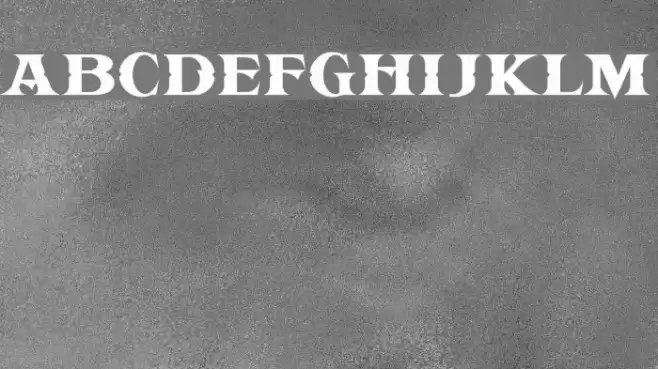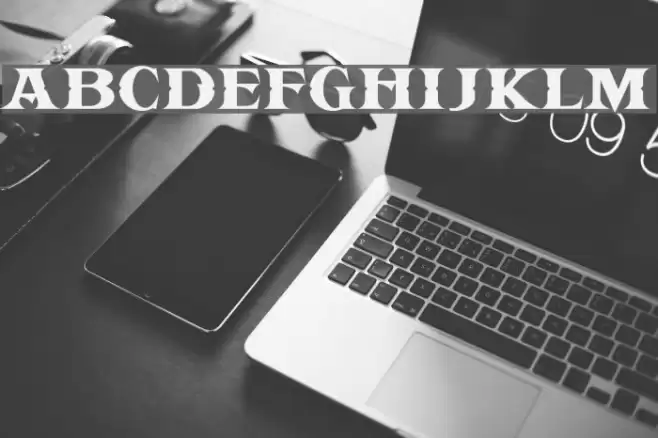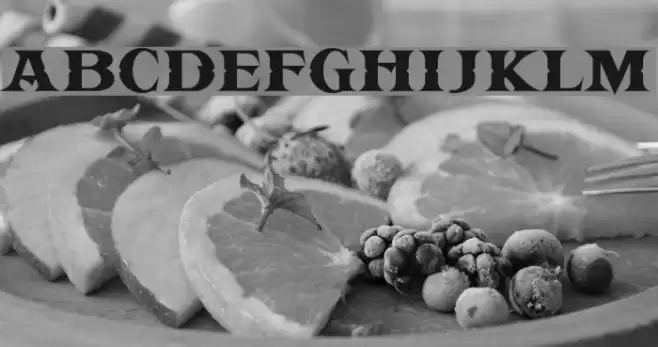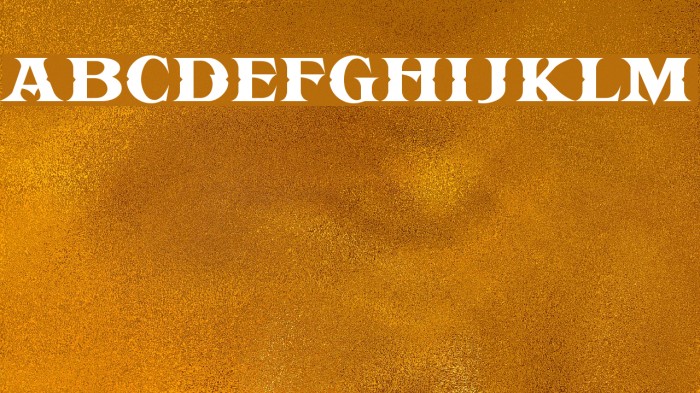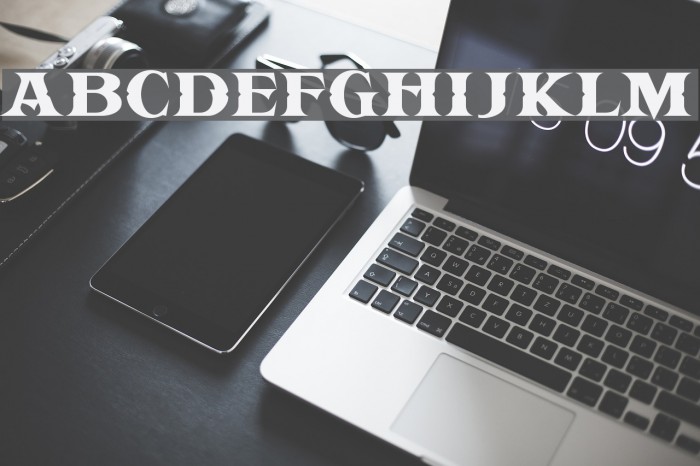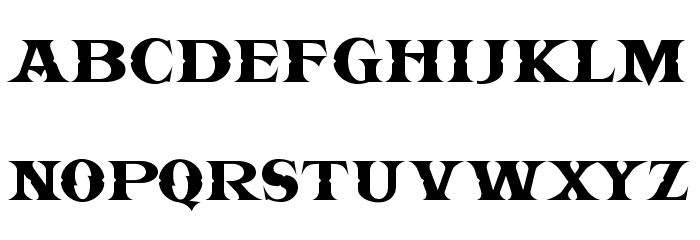
KIDCOOL DRAGON Font
KIDCOOL DRAGON Description
This font exhibits a bold and striking design with sharp, angular serifs and a strong presence. The uppercase letters are crafted with a unique style that combines traditional serif elements with a modern twist, making it stand out in any design. The characters are evenly spaced, providing a balanced and cohesive look. The font's bold weight and high contrast between thick and thin strokes give it a dramatic and impactful appearance, suitable for attention-grabbing headlines and logos.
A bold, high-contrast serif font with sharp, angular serifs and a modern twist from Uncategorized fonts.
- Proposed Projects: Ideal for branding projects, logos, headlines, and posters where a strong, impactful typeface is needed.